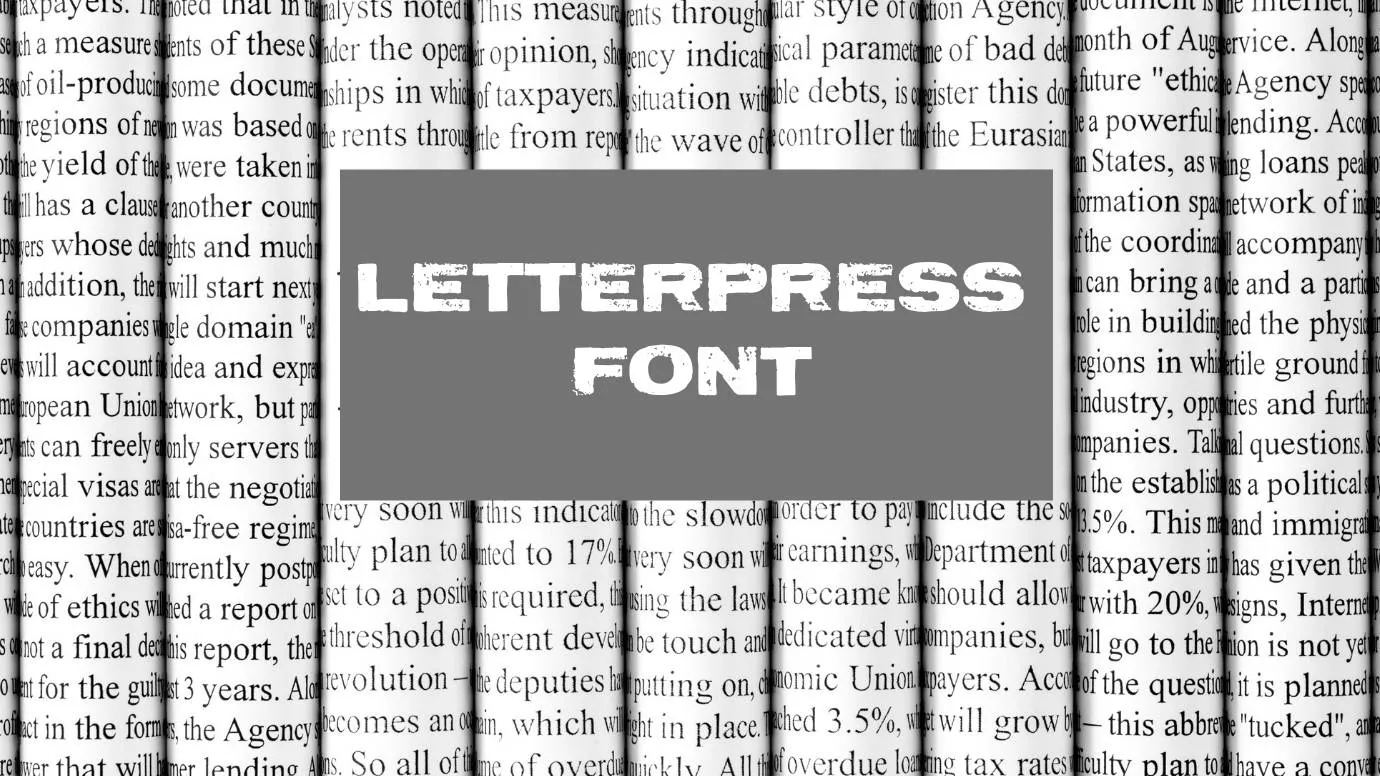
Letterpress is a rough and dingbat font family that comes in five styles including Aurora, Bastard, Headline, Phosphor, and Symbols. It was designed and shared in 2003 by FaceType. This raw decorative font has 292 unique glyphs and advanced features with OpenType and TrueType formats.